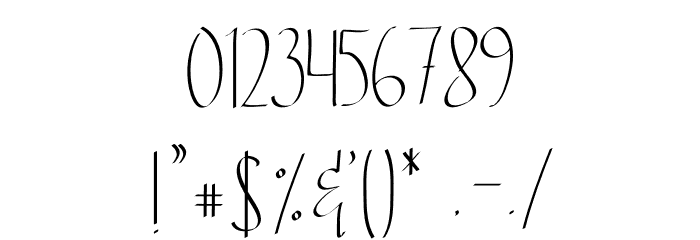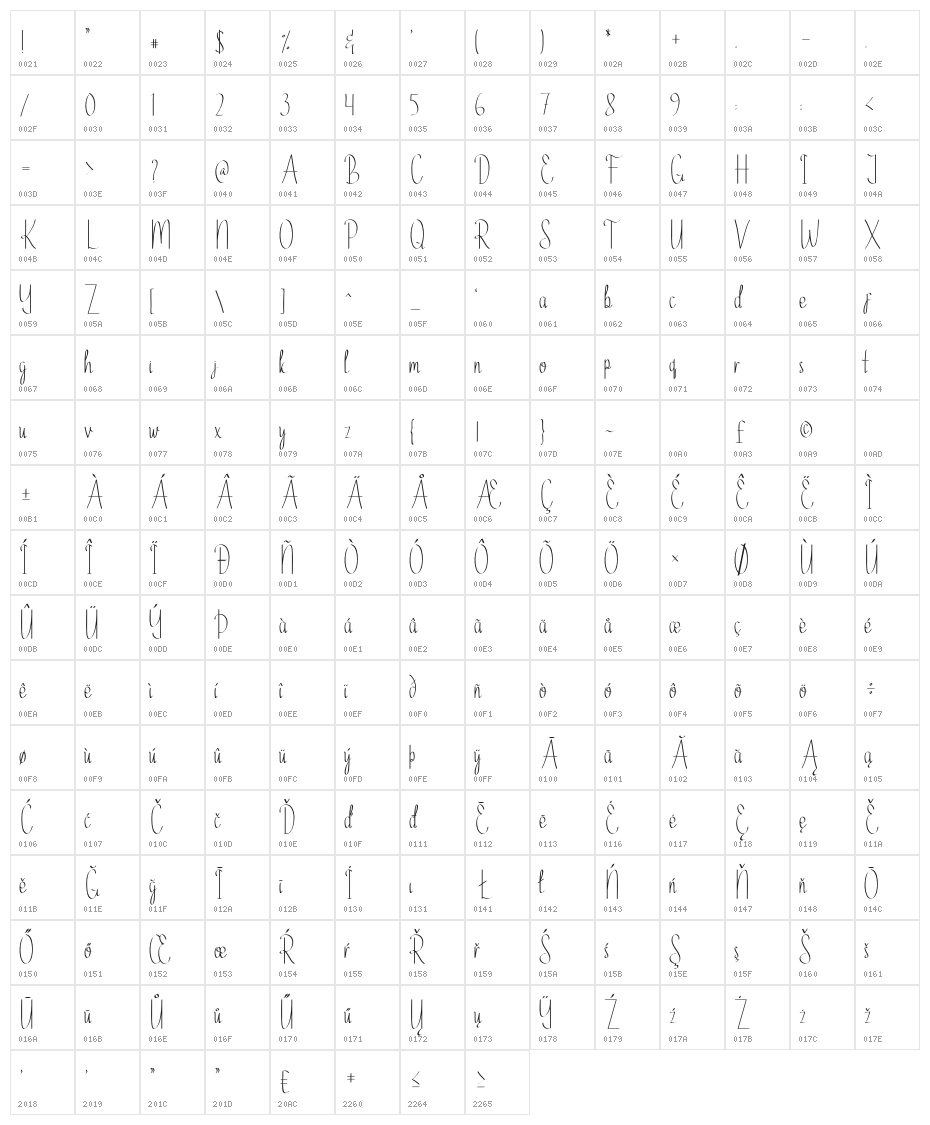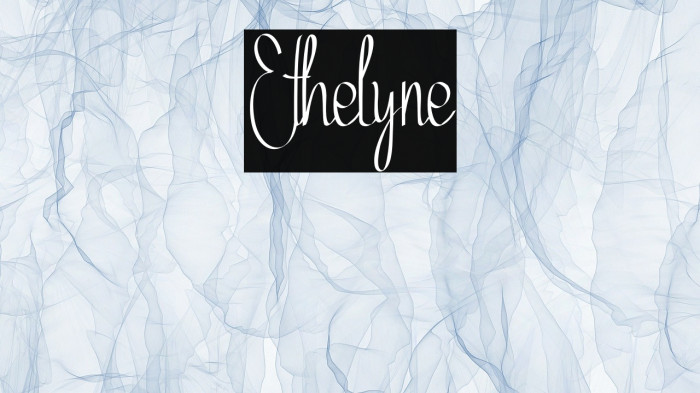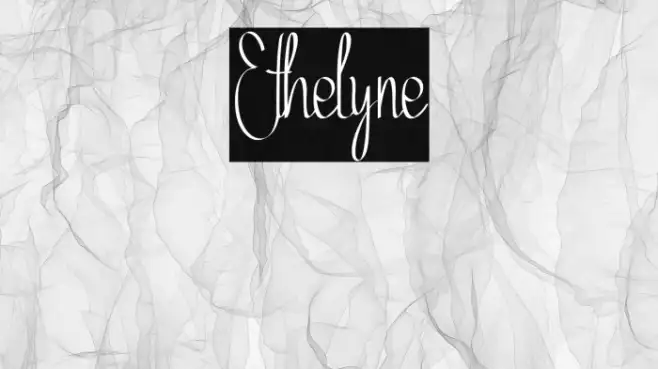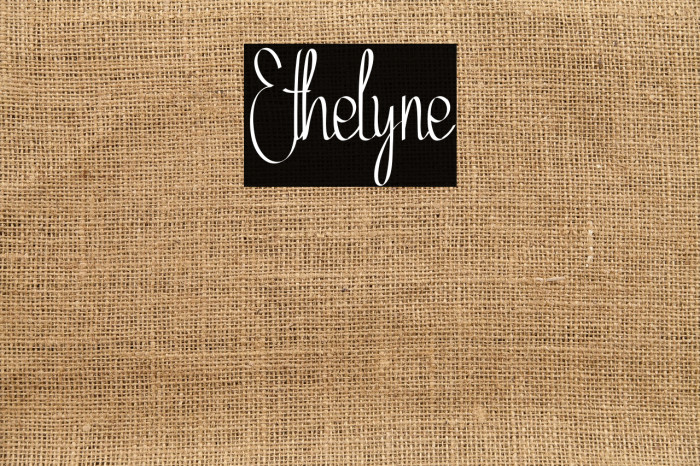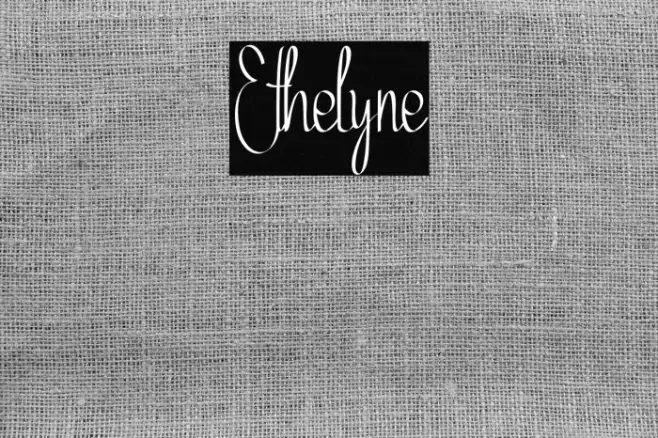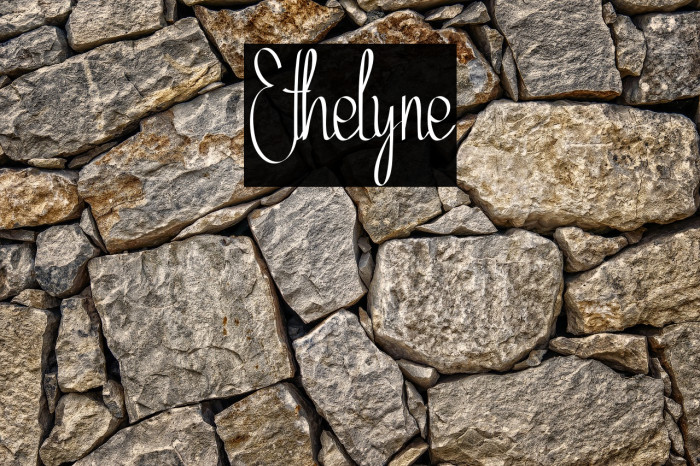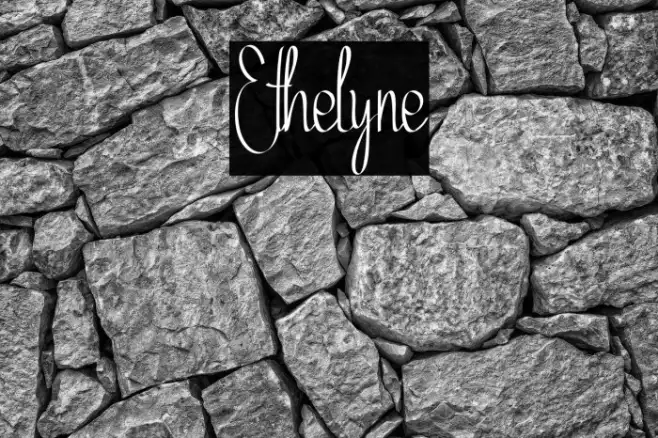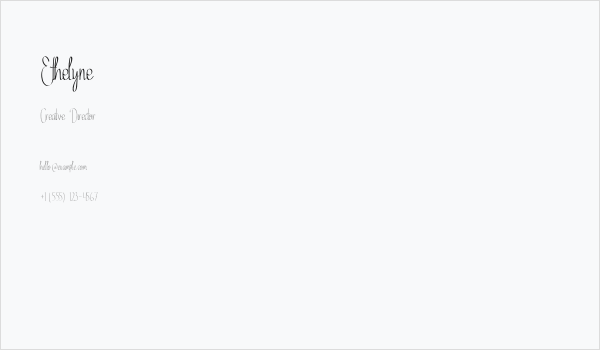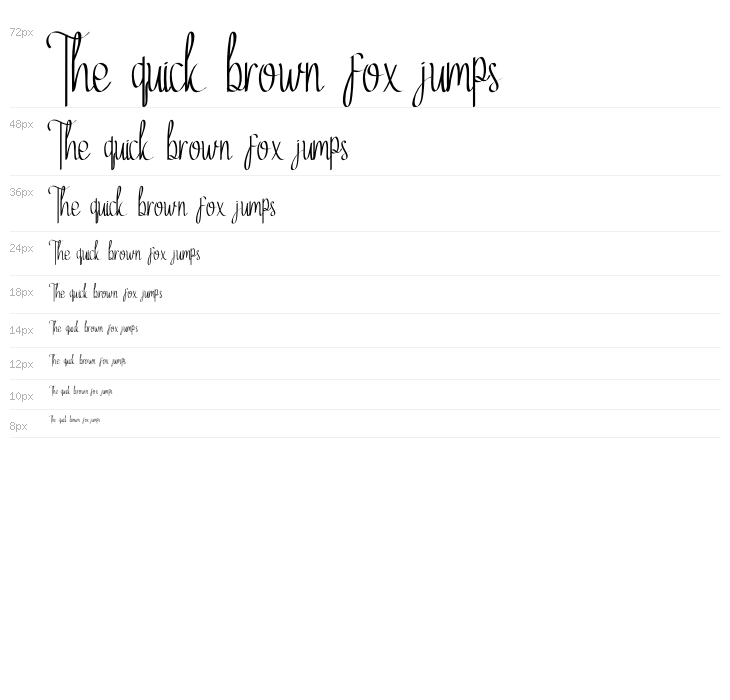
Ethelyne Font
Ethelyne Description
This font features a unique blend of elegance and modernity, characterized by its tall, slender letterforms and subtle curves. The uppercase letters are particularly elongated, giving a sophisticated and airy feel. The lowercase letters maintain a consistent style, with a slight slant that adds a touch of fluidity and grace. The numerals are distinct and maintain the overall aesthetic, ensuring readability while complementing the letterforms. Special characters are thoughtfully designed, maintaining the font's cohesive style. This font's delicate strokes and high contrast between thick and thin lines make it stand out, offering a refined yet approachable look.
| Proposed Projects | Ideal for wedding invitations, luxury branding, editorial design, and elegant packaging. |